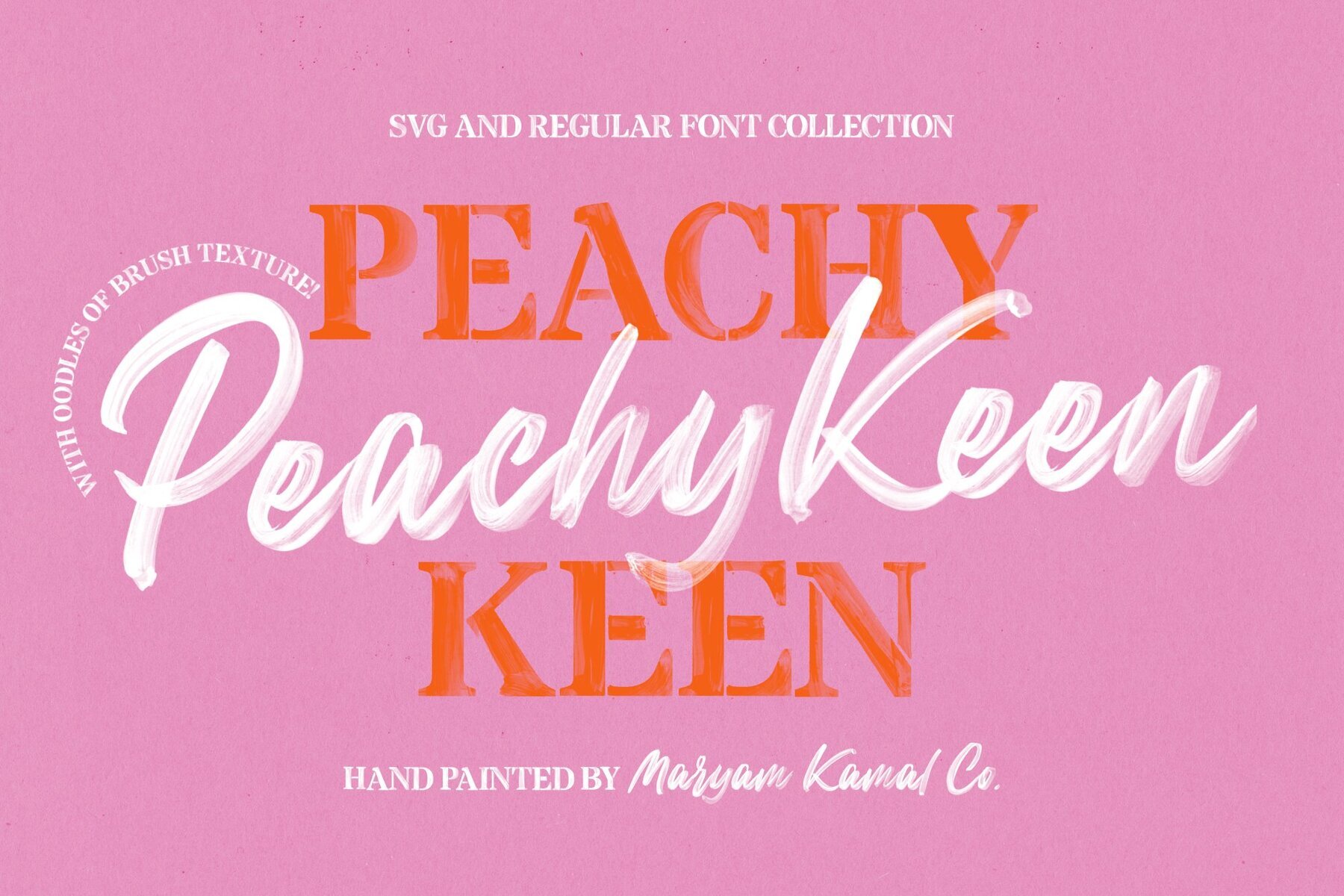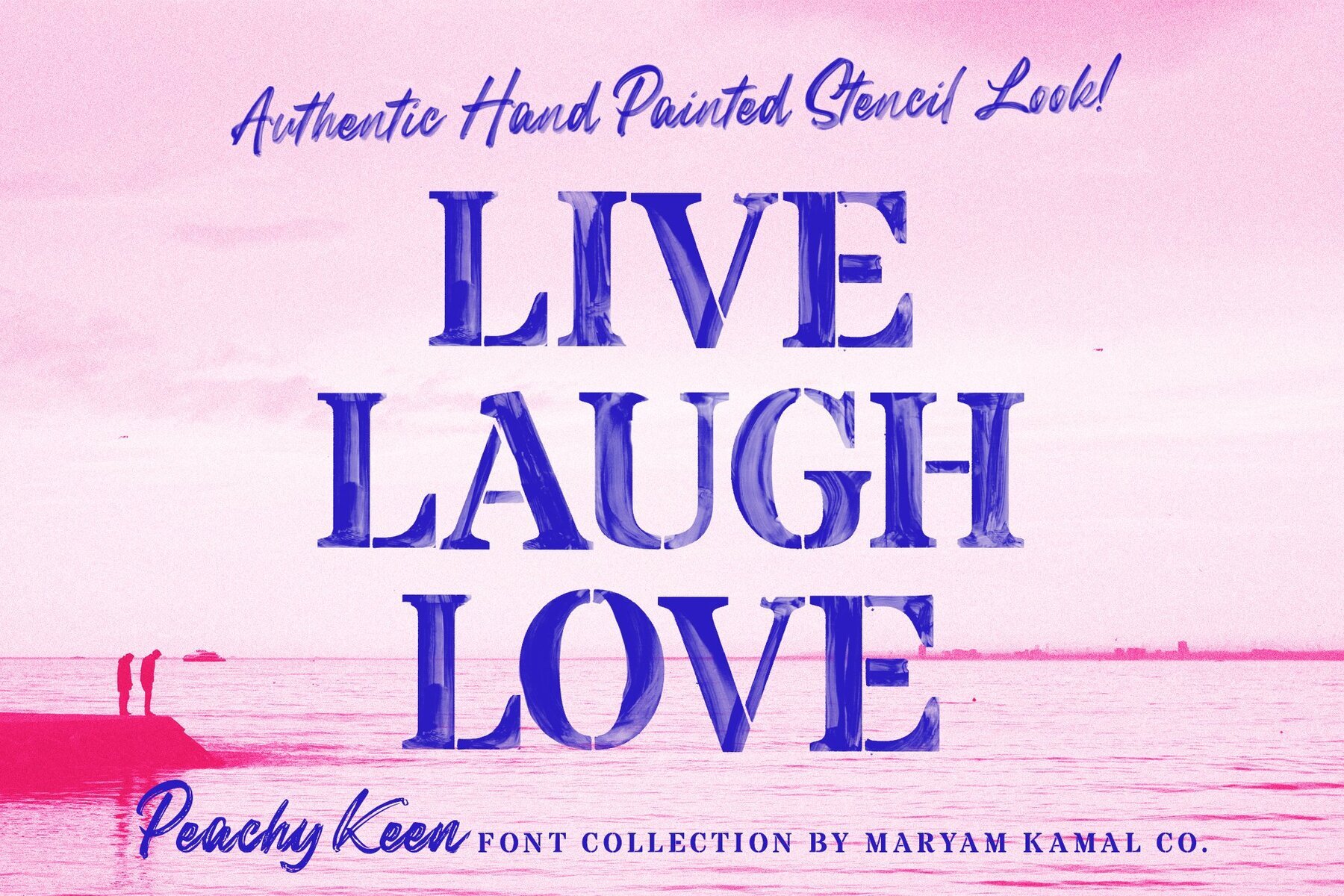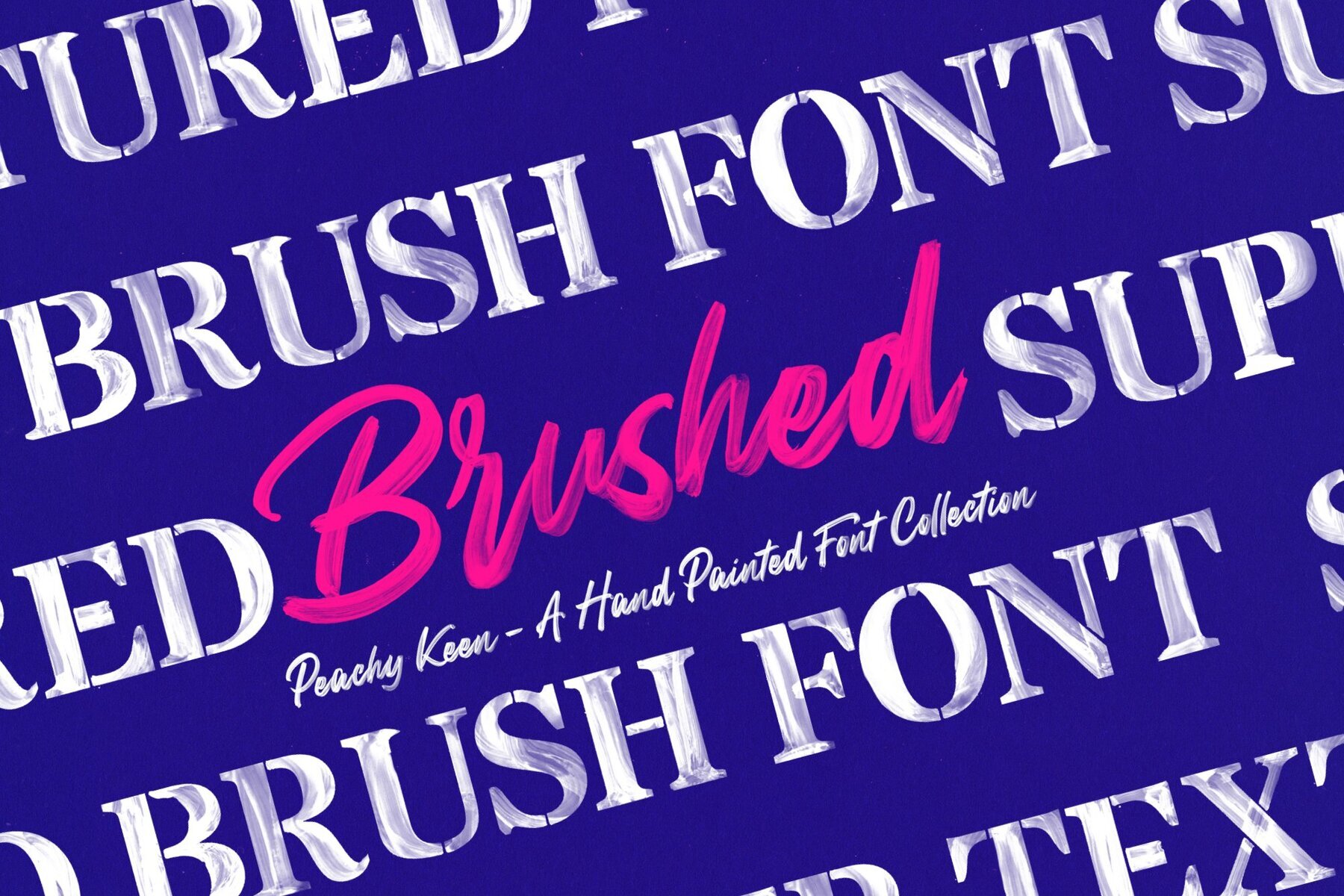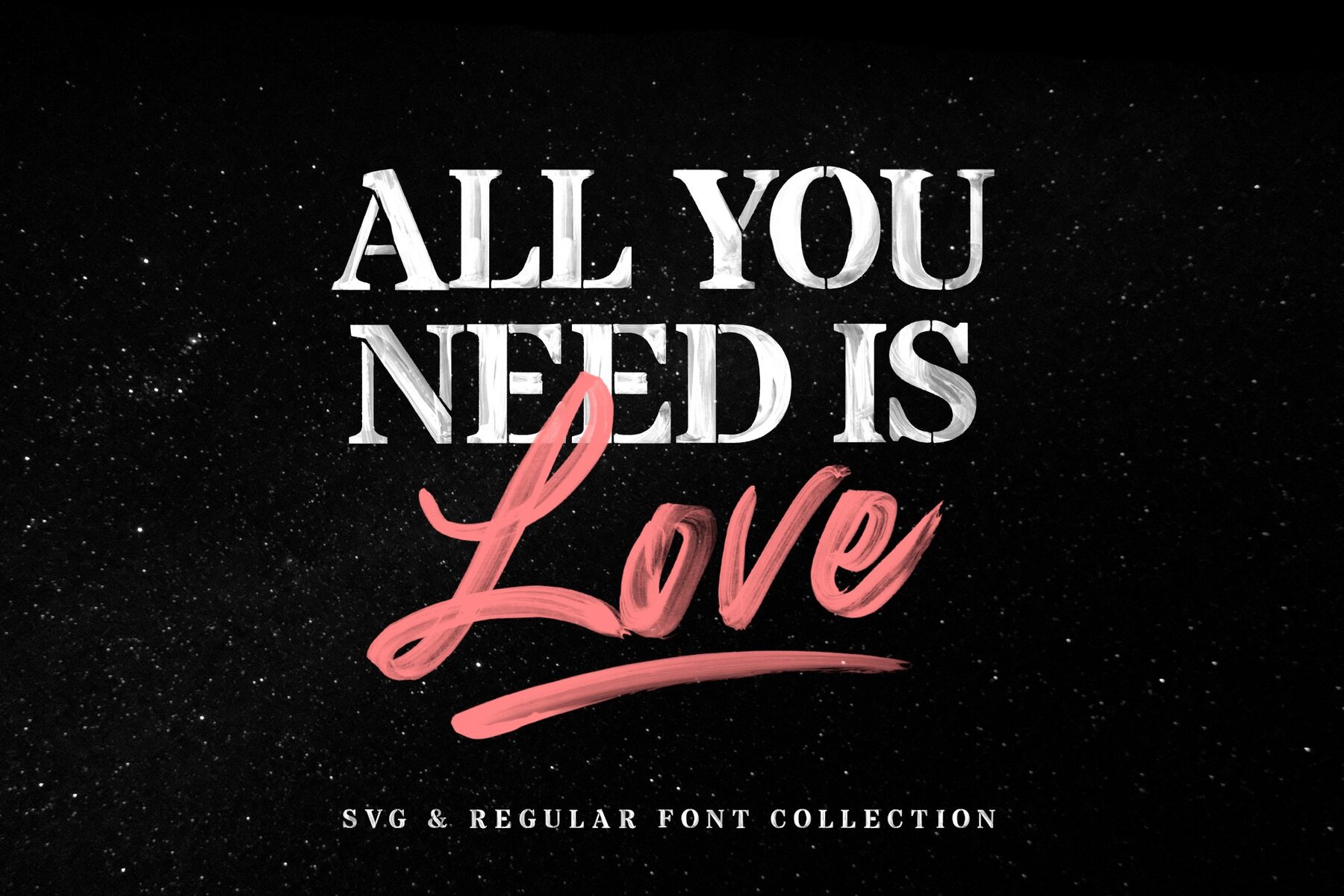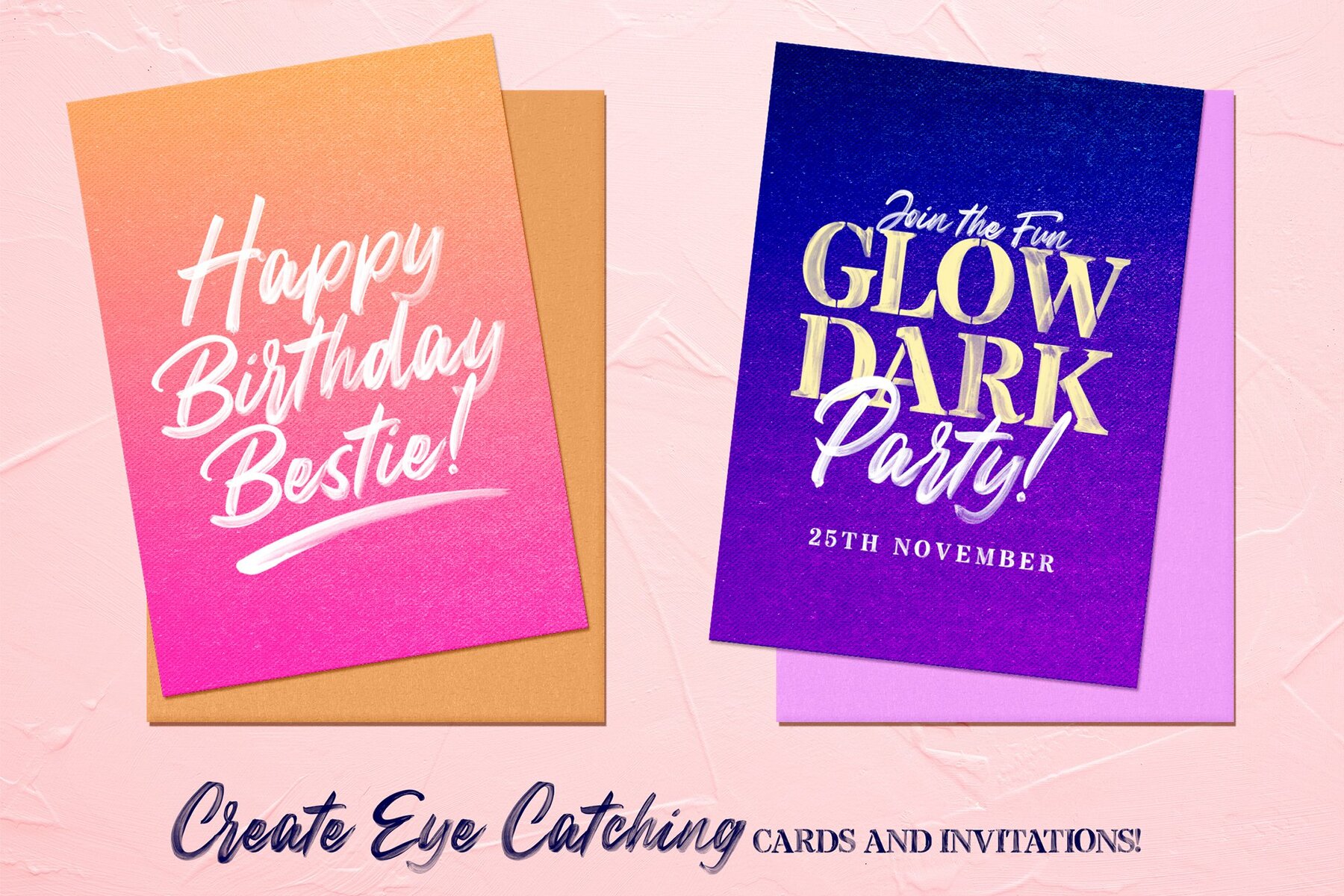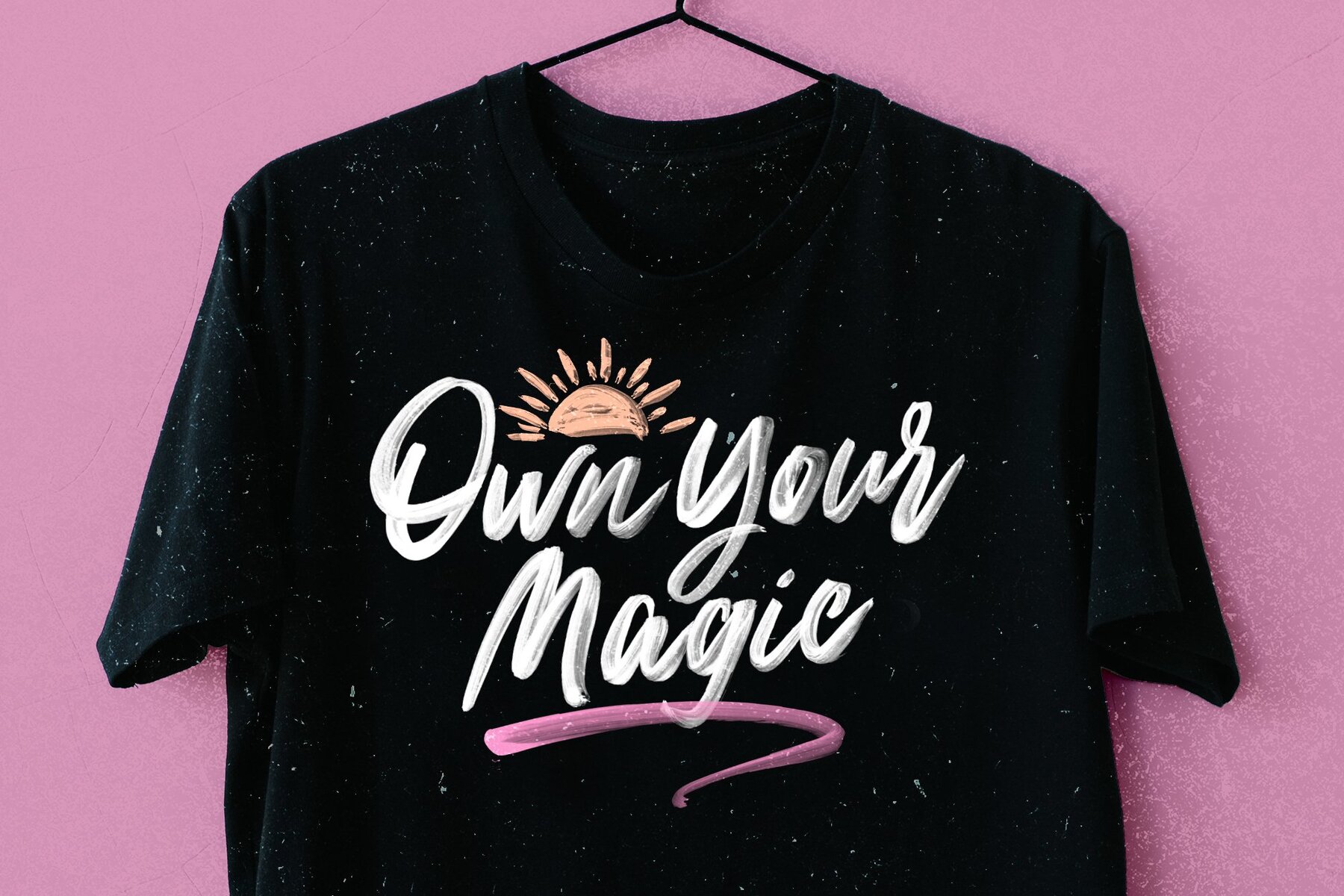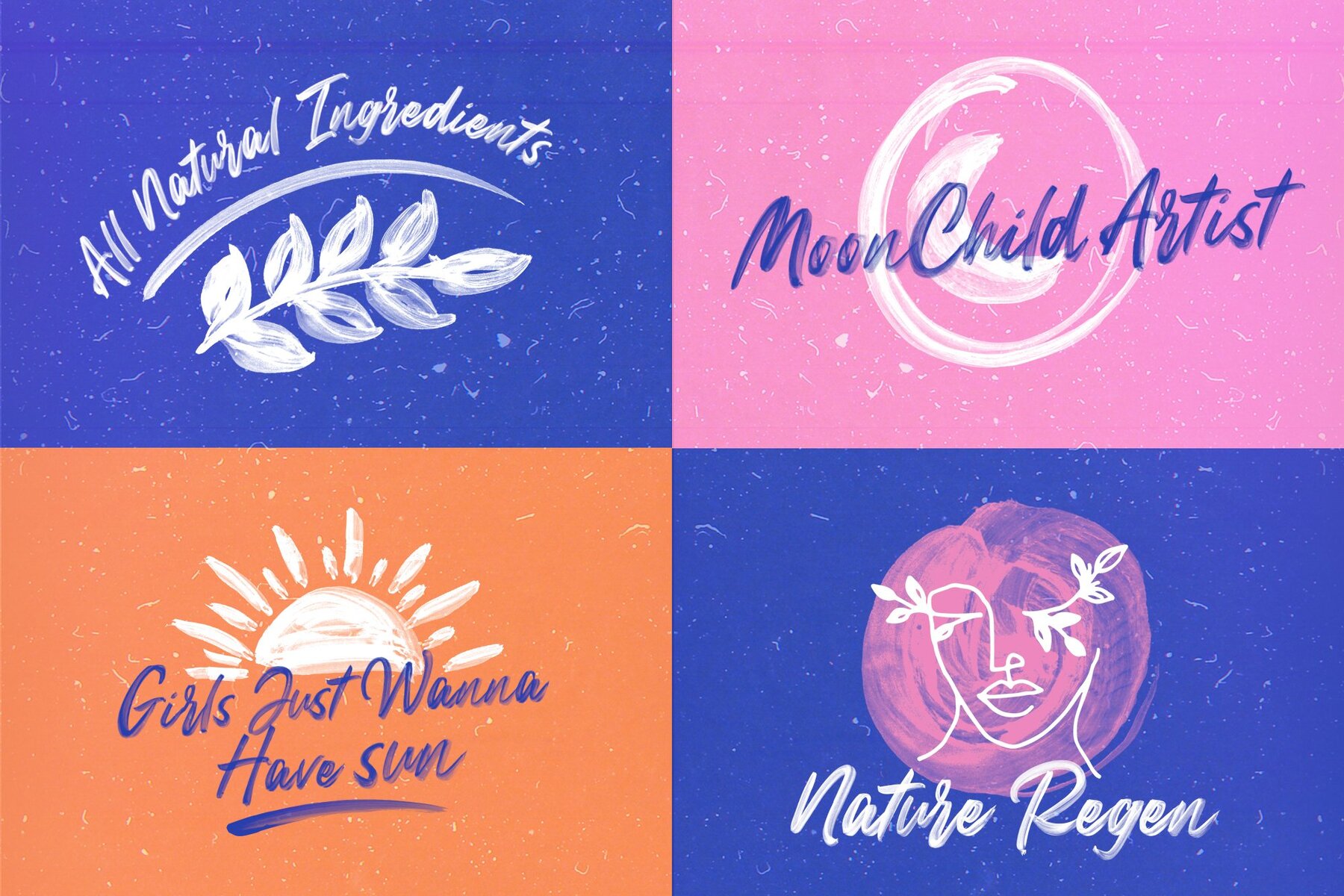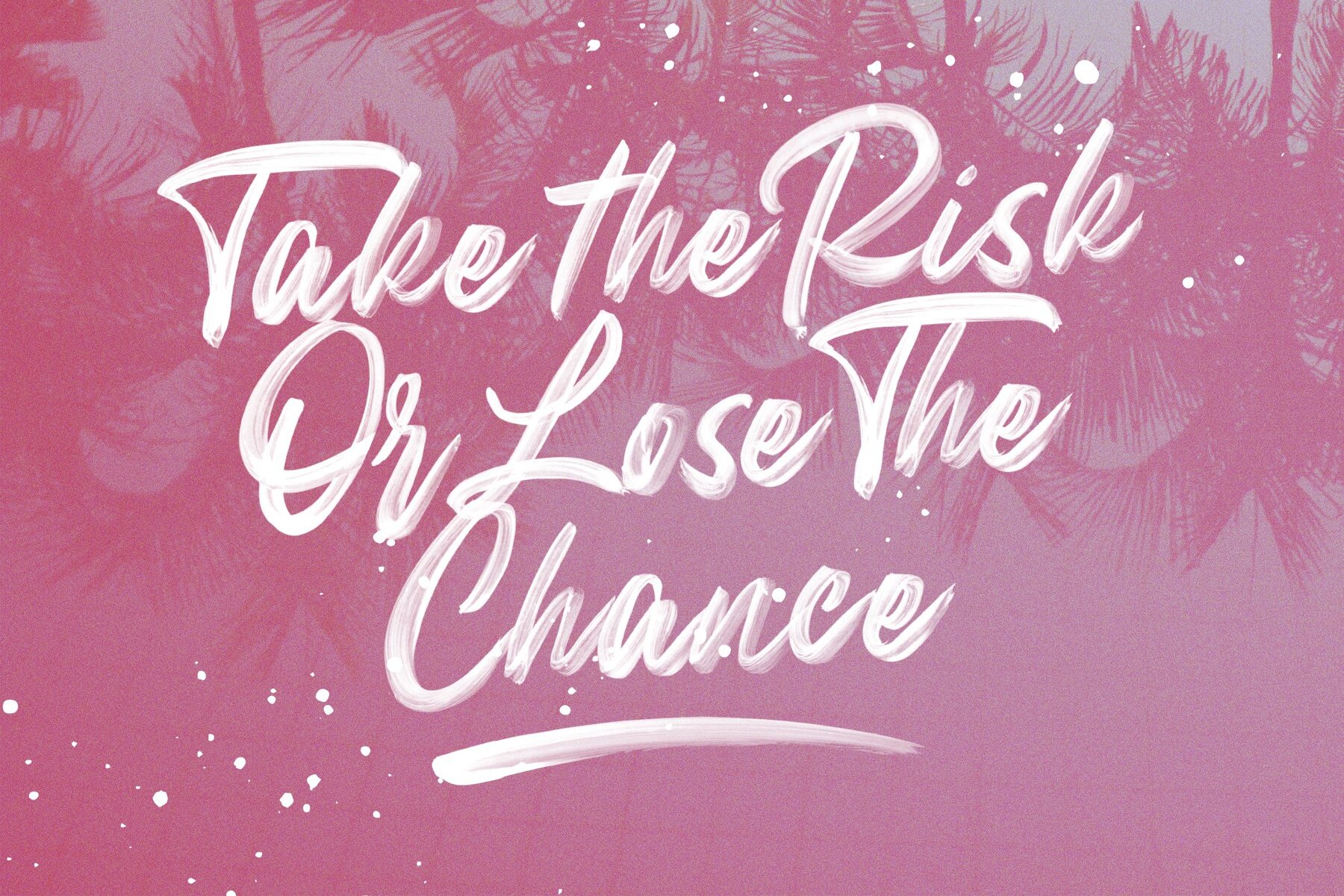
Peachy Keen Font
Introducing the all-new Peachy Keen Font Collection! A hand-painted font collection with oodles of texture and sass! The Peachy Keen Collection includes a stylish hand-painted script and a complimentary stencil serif, both provided in SVG and regular font types. The Collection was designed to be rich in texture and character. With built-in Opentype features, this font comes to life as if you've painted it yourself!! The collection includes complementary hand-painted illustrations for you to use them however you like in your designs! Create Logos, posters, invitation cards, thank you cards, birthday wishes, t-shirts, merchandise, the options are truly limitless! The font also includes 11 built-in stylish swashes to vamp up your quotes and designs :) DISCLAIMER It’s important to note that SVG fonts are relatively new technology, and currently only supported by Photoshop CC 2017(or newer) or Illustrator CC 2018 (or newer). The regular font version, however, is widely supported in most apps. Don't have the supporting software to use the SVG font? No worries! as I've included the individual letters as PNGs (transparent background) reserving the transparency and texture, just drag and drop! Suitable for use with tools like Canva! A SUMMARY OF WHAT’S INCLUDED: - Peachy Keen Script (SVG Opentype Font) - Peachy Keen Sans (SVG Opentype Font) - Peachy Keen Script (Regular Opentype Font) - Peachy Keen Sans (Regular Opentype Font) - Peachy Keen Script (Individual PNG characters- 400 DPI) - Peachy Keen Sans (Individual PNG characters- 400 DPI) - Peachy Keen Hand-Painted illustrations (PNG transparent background- 400 DPI) - Peachy Keen Hand-Sketched illustrations (PNG transparent background- 300 DPI)